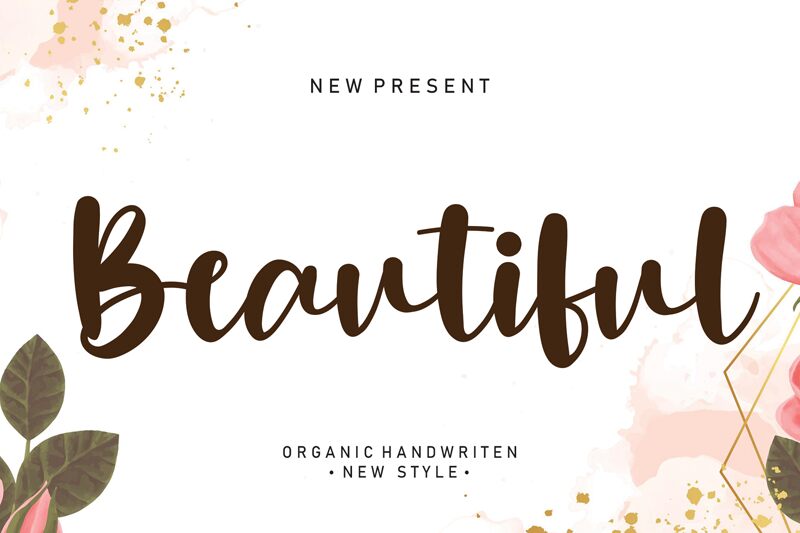
Beautiful
Beautiful, the latest masterpiece from renowned designer Scratchones, is a stunning organic brush font that brings a touch of elegance to your projects. With its semi-bold weight and flowing curves, this font is perfect for adding a touch of sophistication to wedding invitations, menus, or any design that calls for a touch of whimsy. Beautiful is versatile enough to be used in a range of projects, from branding and packaging to social media graphics and editorial designs. So why not add some beauty to your next project with the exquisite Beautiful font?
special creative products for you, our products will give you an extraordinary experience.
the latest style letters are perfect for wall displays, wedding invitations, social media post logos,
advertisements, product packaging, product designs, labels, photography, watermarks, invitations, stationery,
and any project that requires taste handwriting.